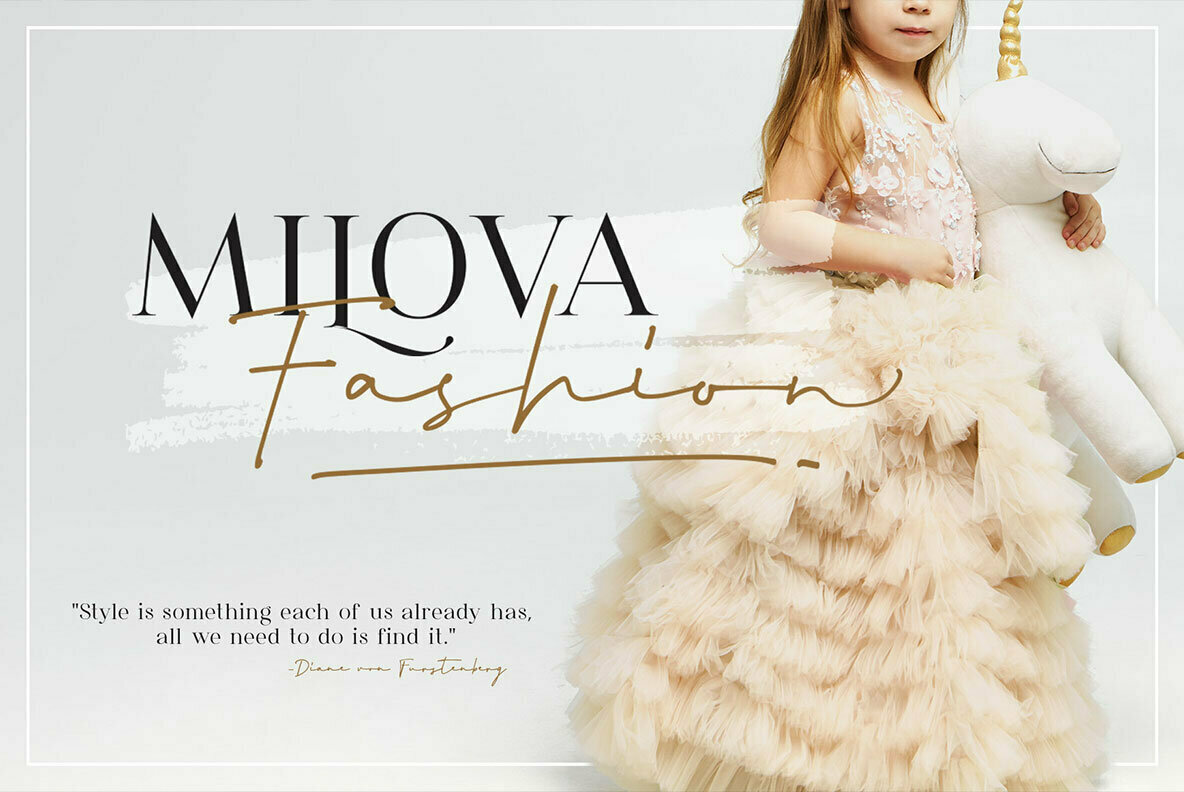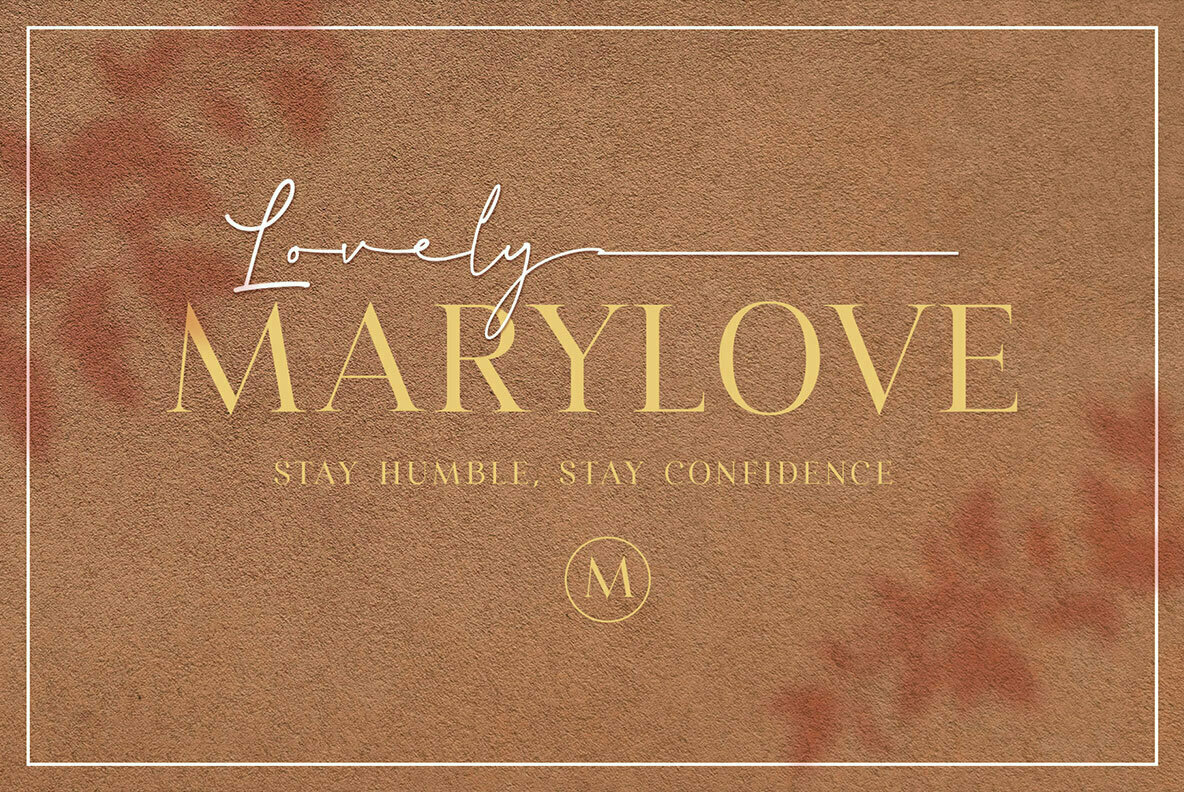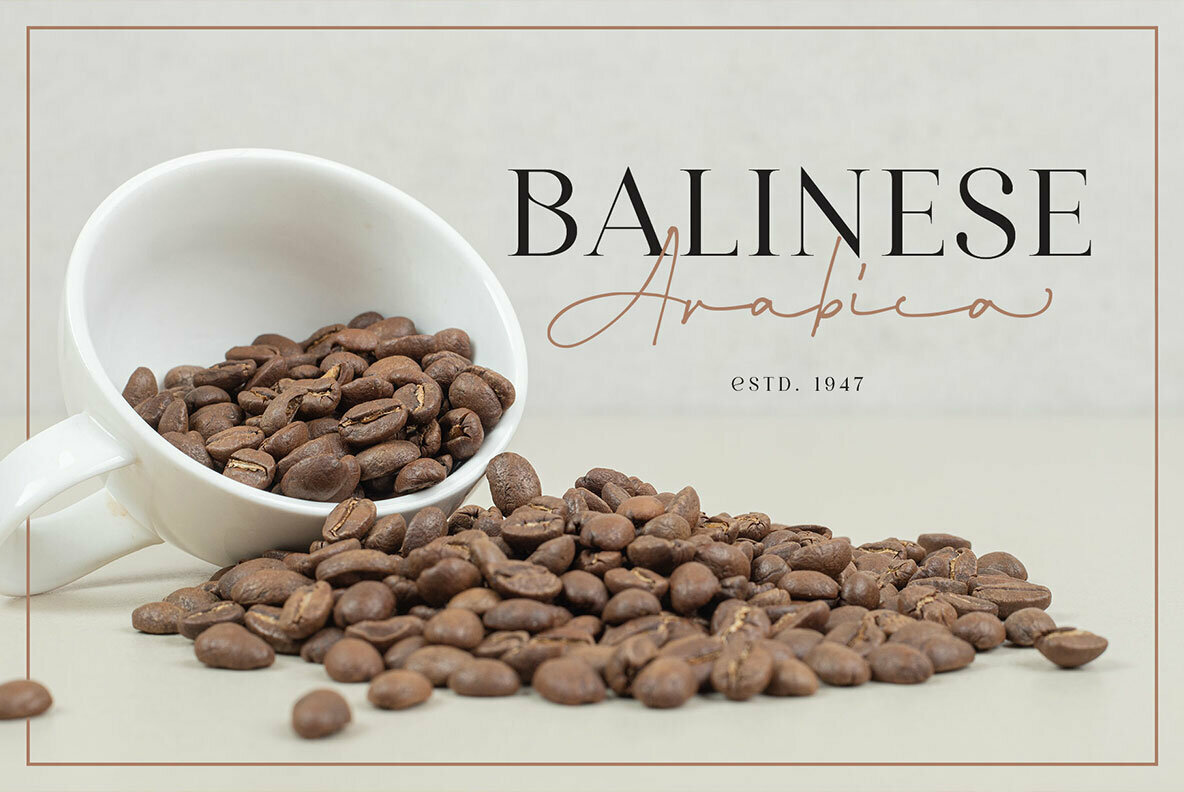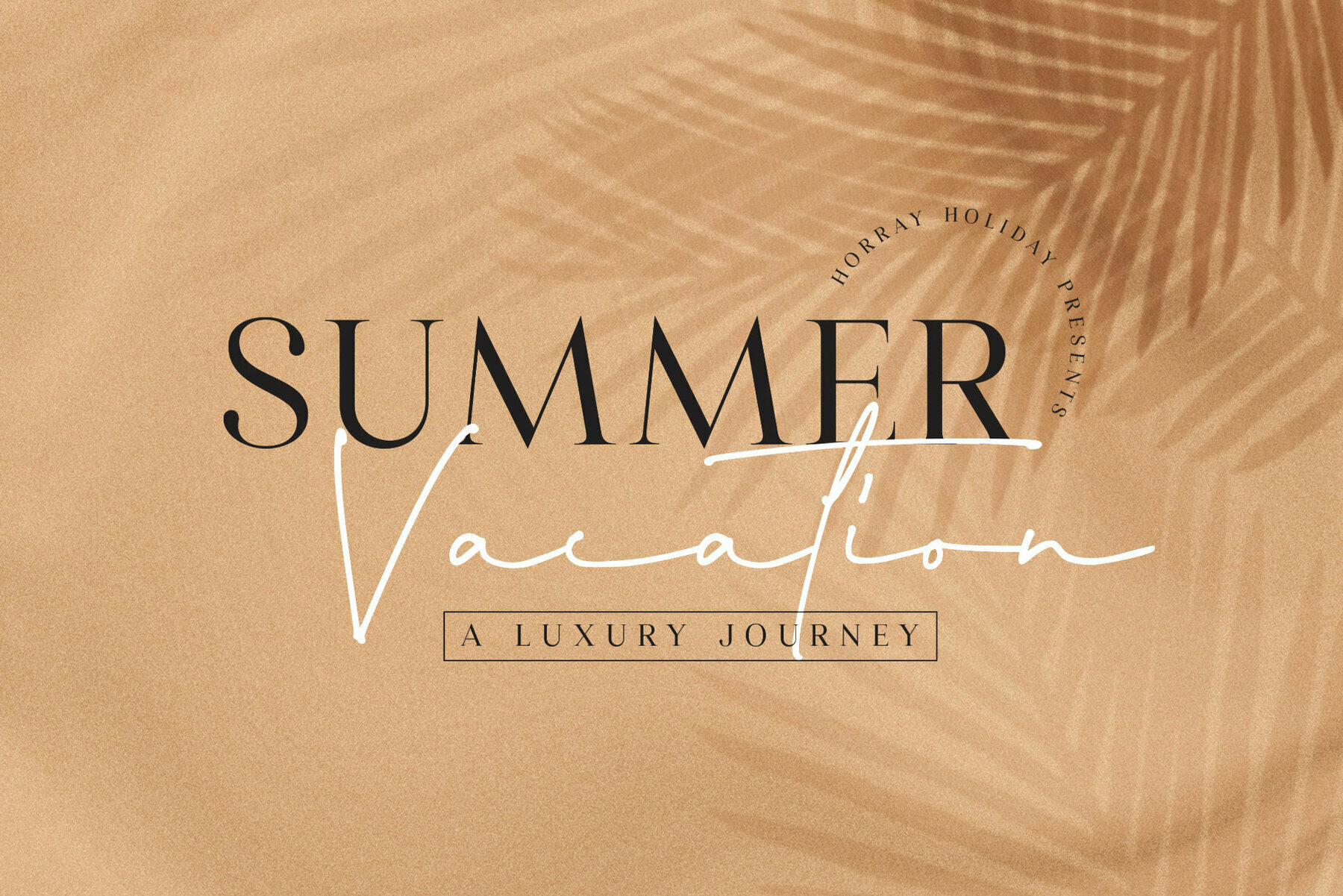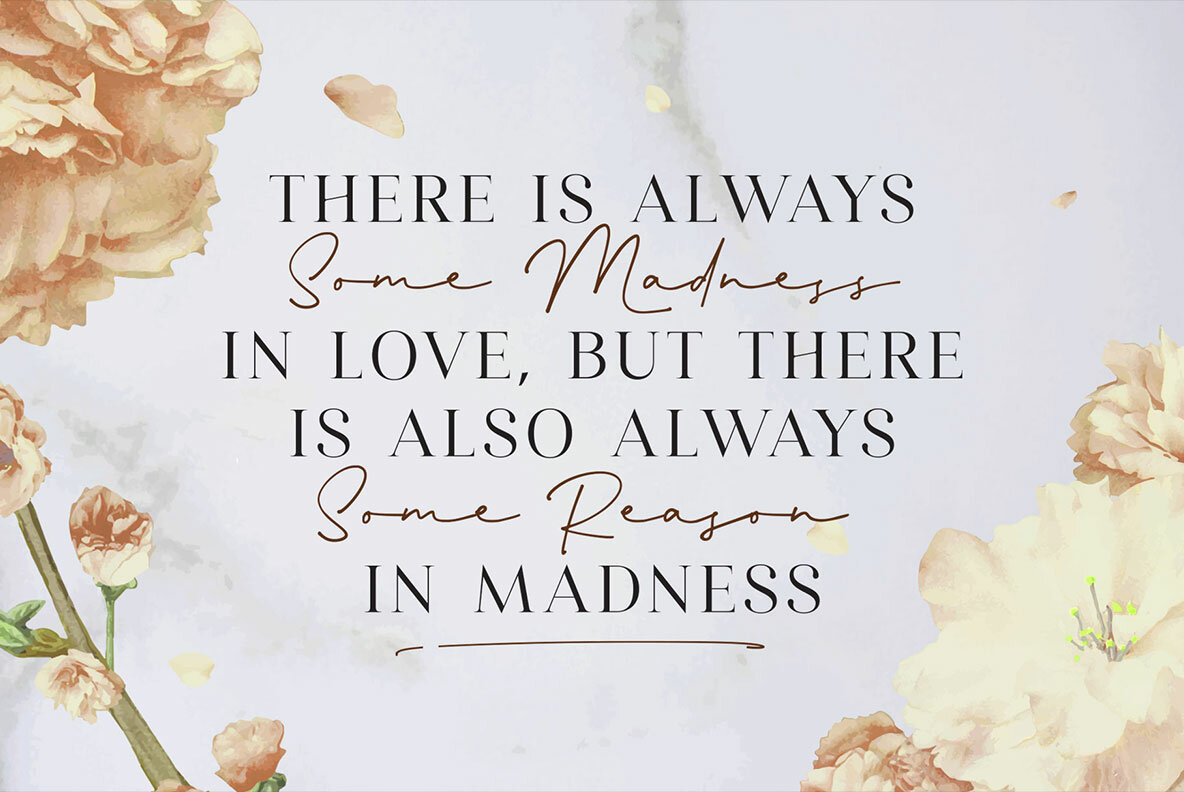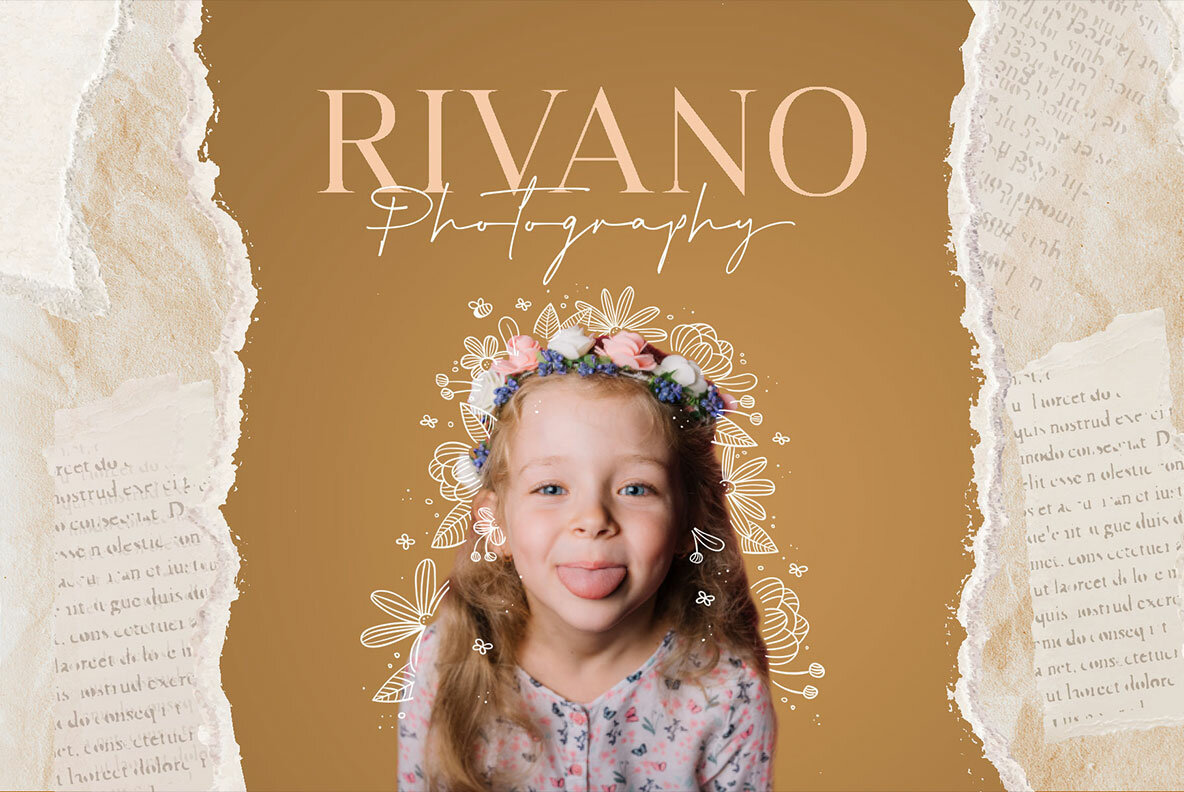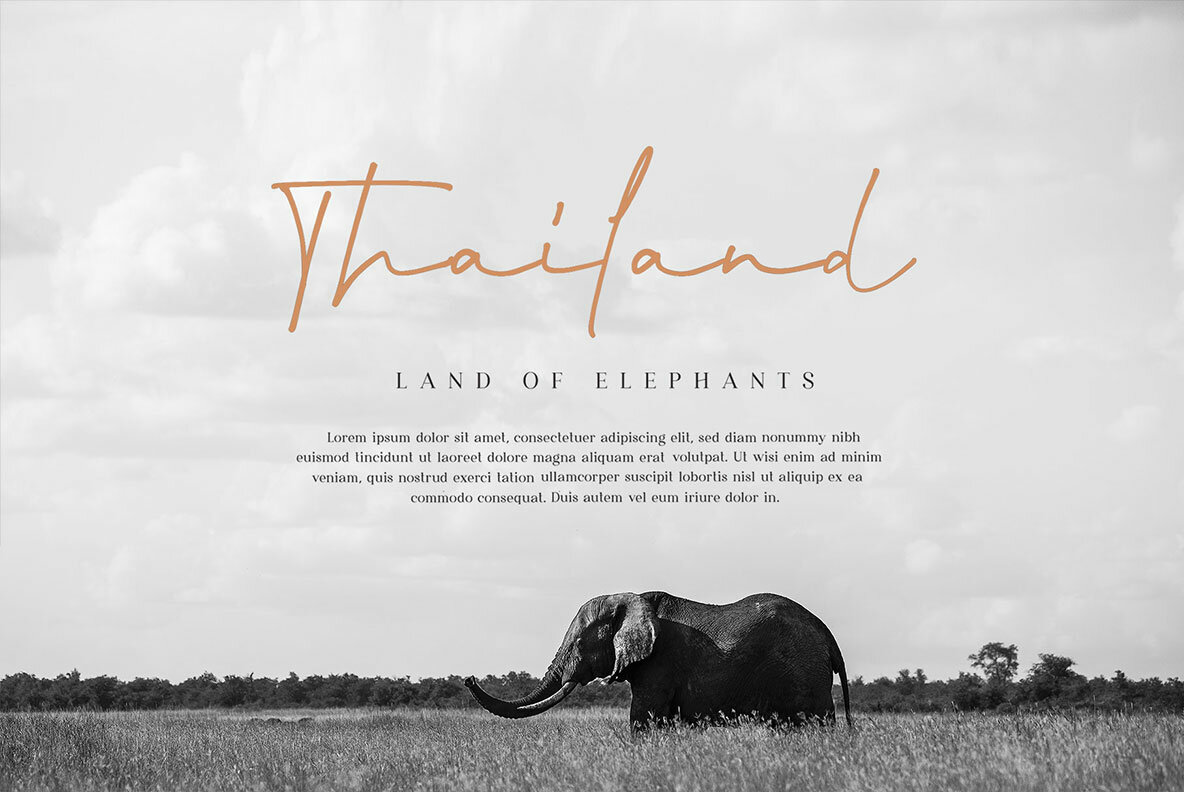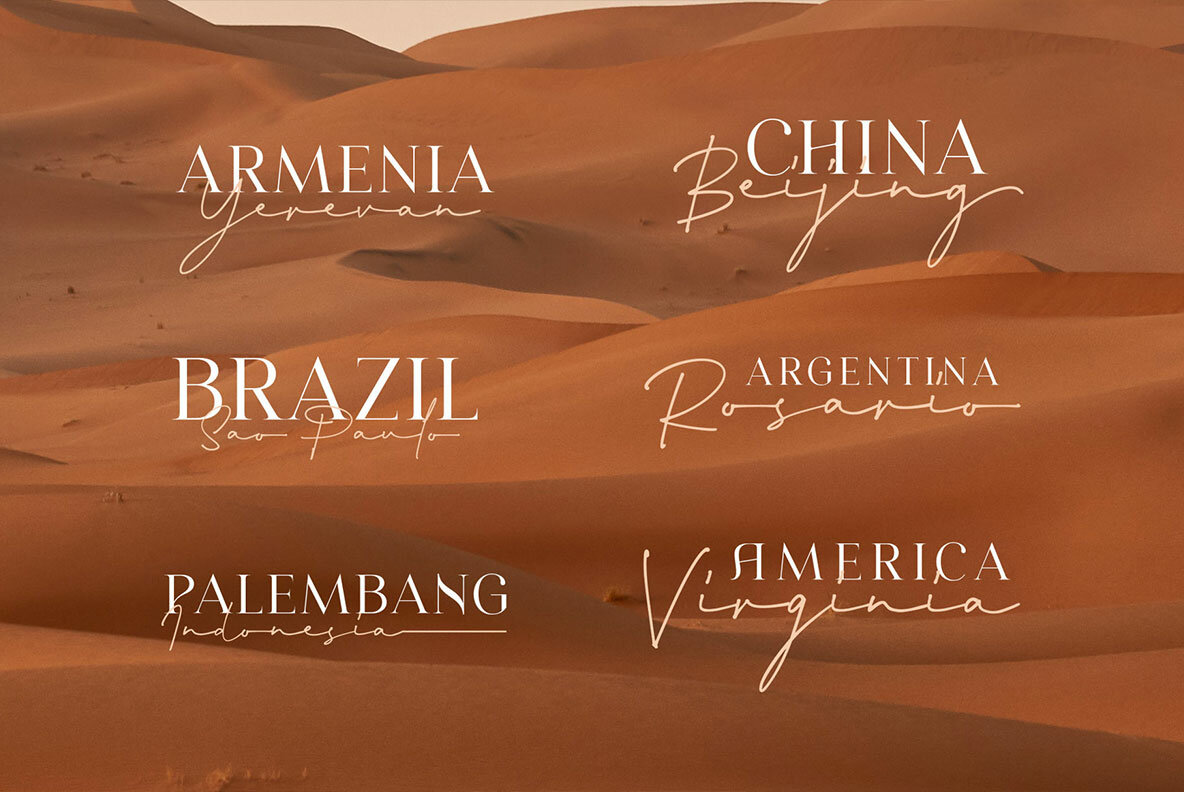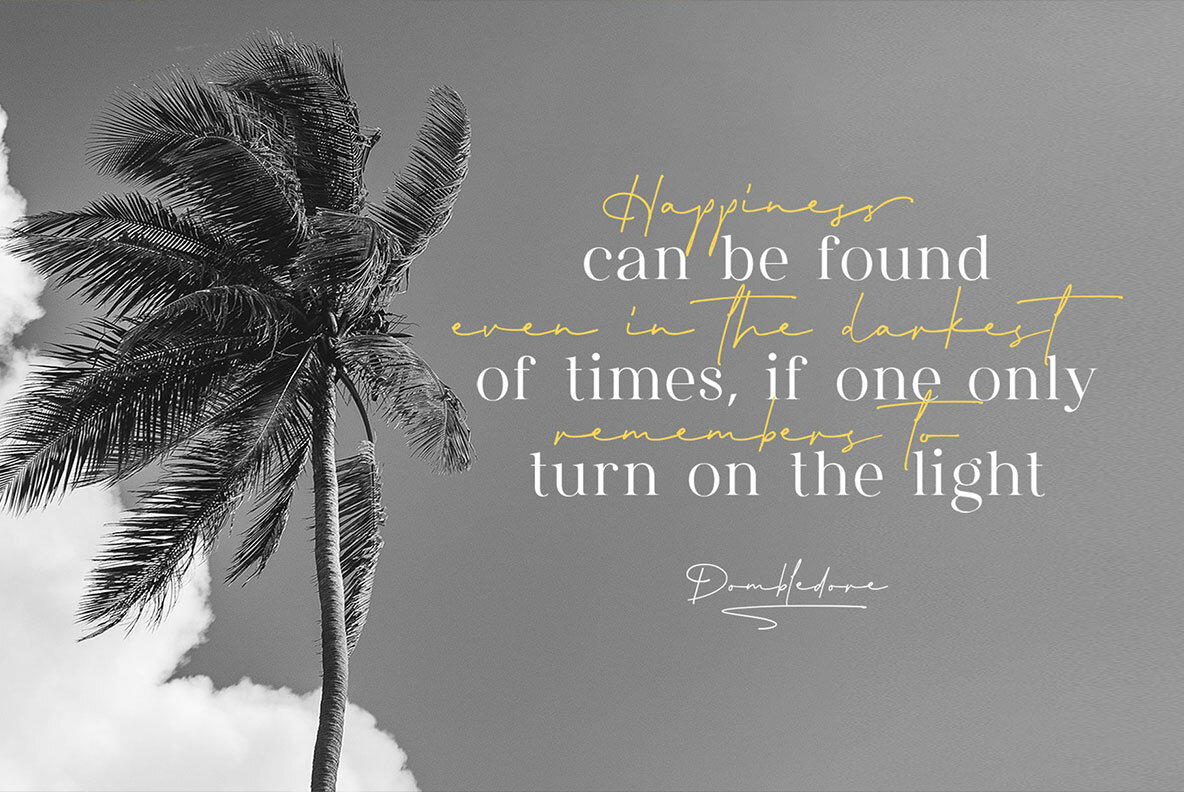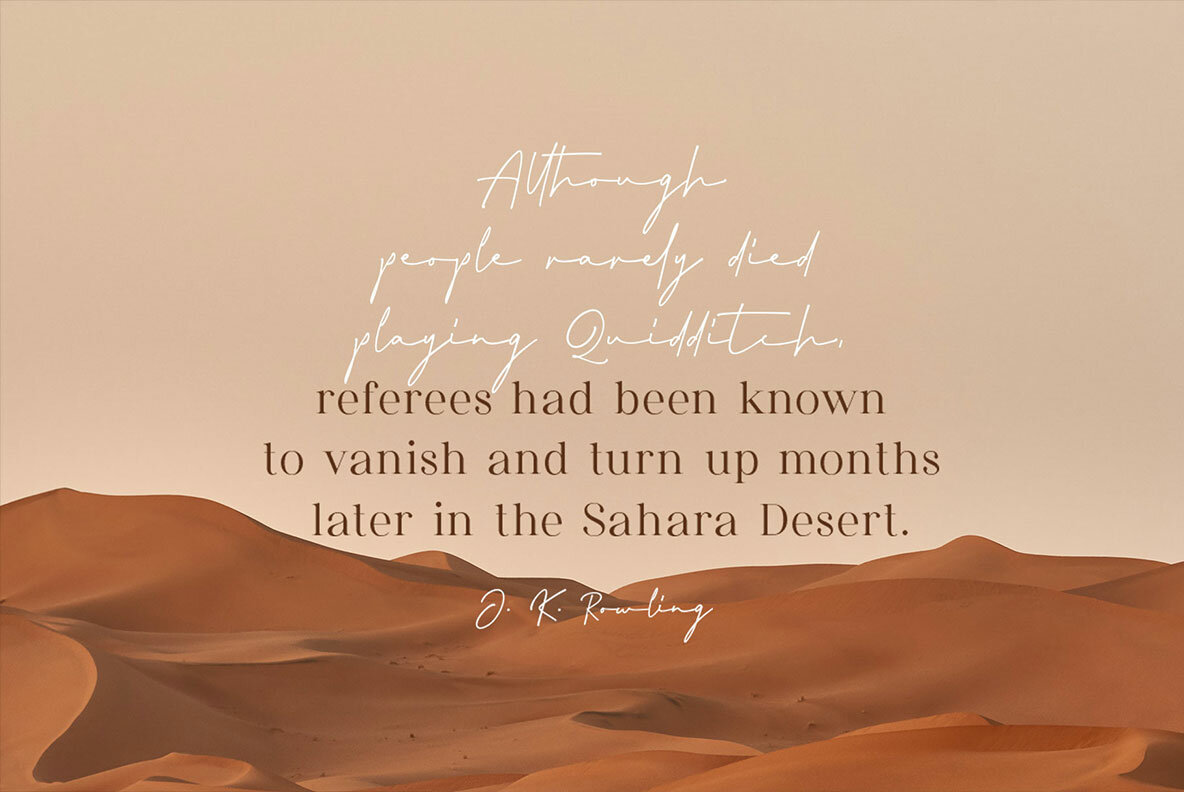
Wonderful Melanesia - Font Duo
Wonderful Melanesia blends a fancy font combination with a minimalist signature and elegant serif, meticulously crafted to enhance any design needing an elegant touch. Each letterform is carefully designed, offering a font duo that embraces a classy yet minimalist aesthetic. The serif boasts tighter spacing for greater readability, while the signature font captivates with dynamic strokes for a natural, handwritten feel. This font duo excels in versatility and beauty, equipped with a variety of OpenType features designed to soften and elevate your design projects.Wonderful Melanesia: A Sophisticated Font Duo